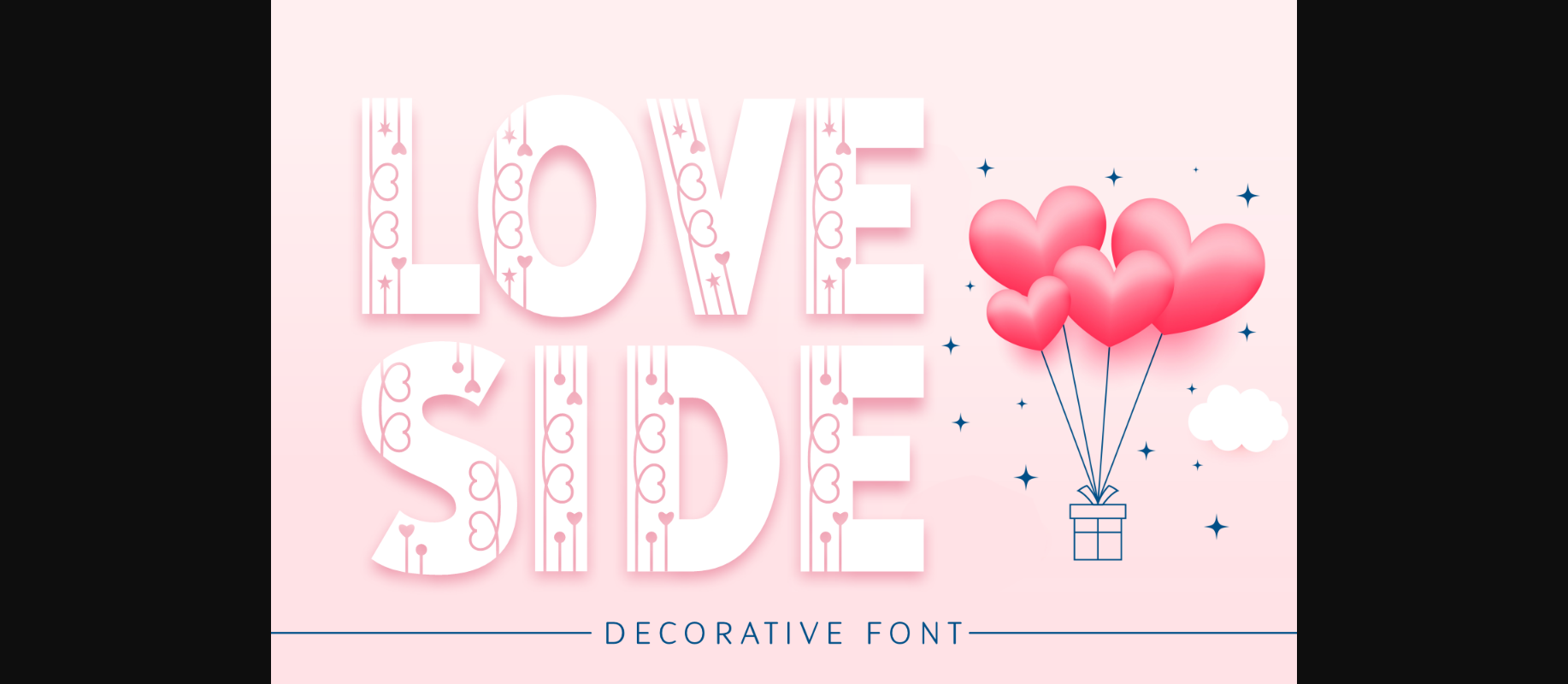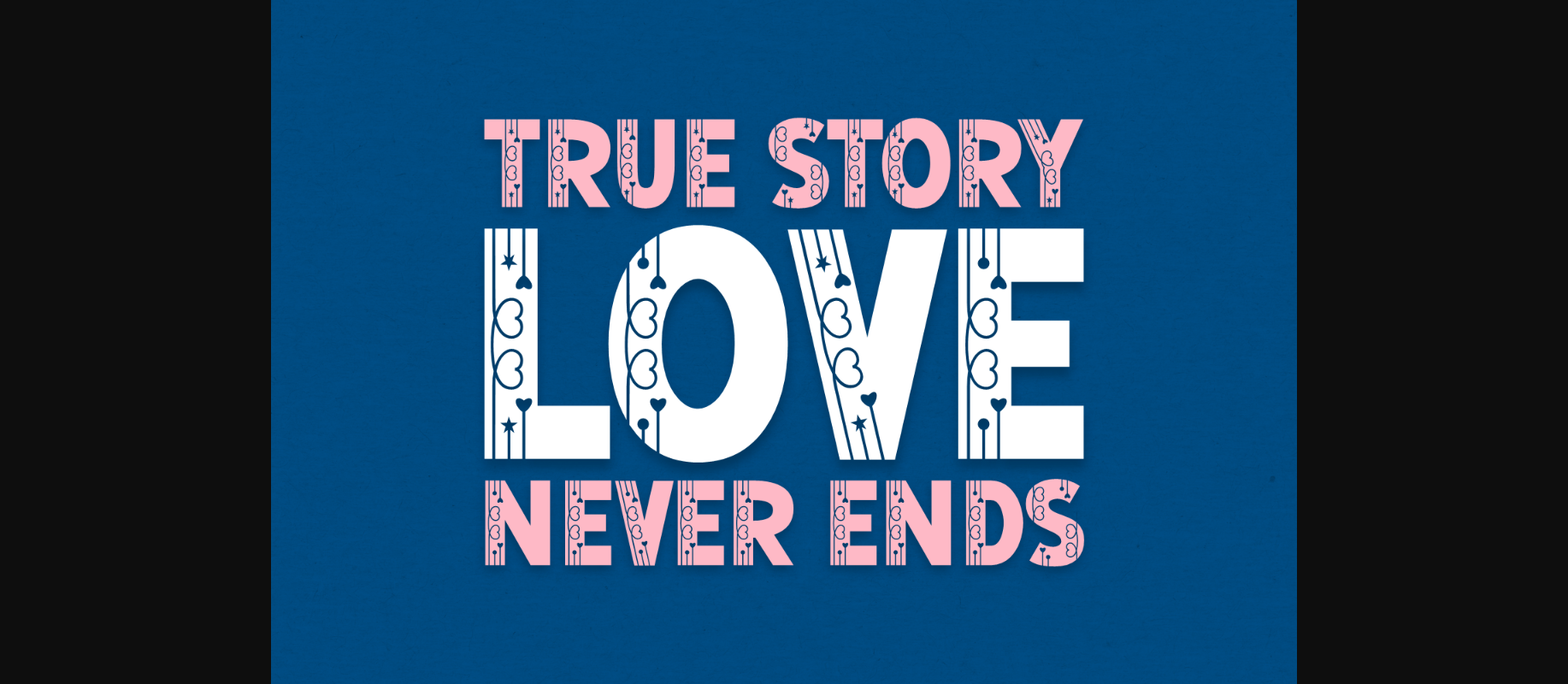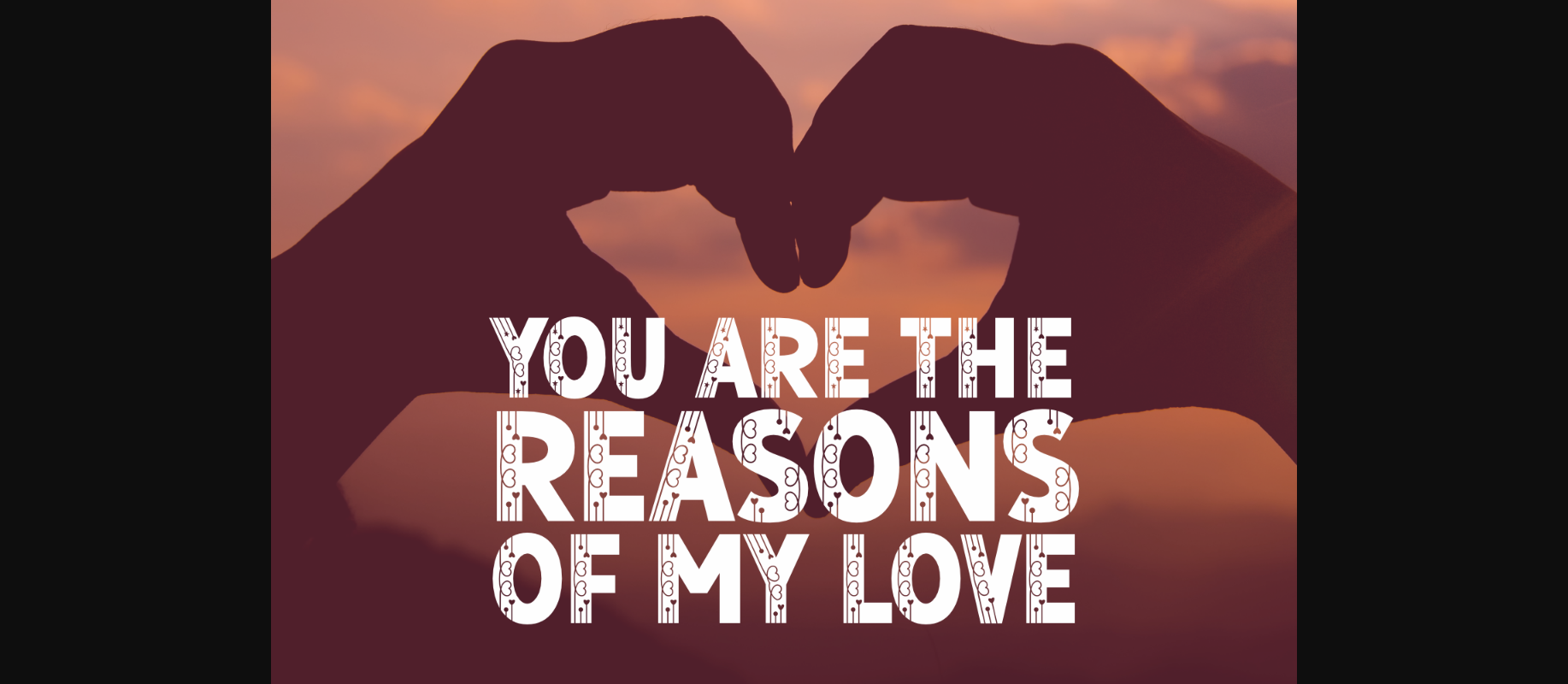
Love Side Font
About Love Side Font
Love Side is the perfect decorative font for projects with a romantic theme. It beautifully complements Valentine’s Day cards, birthday cards, party invitations, wedding invitations, or anything celebratory.